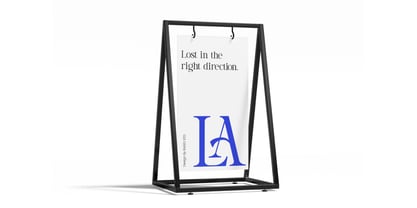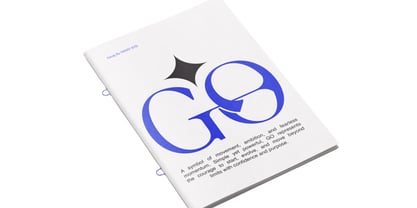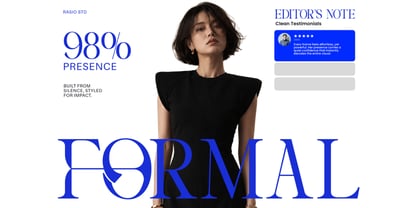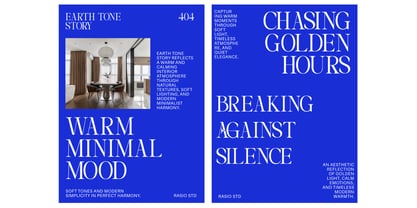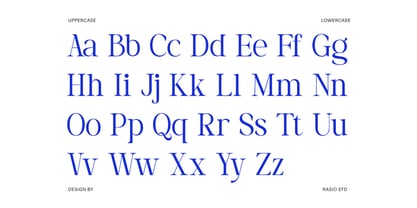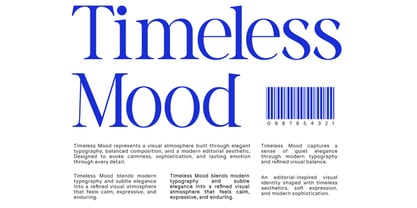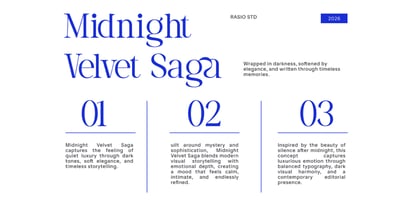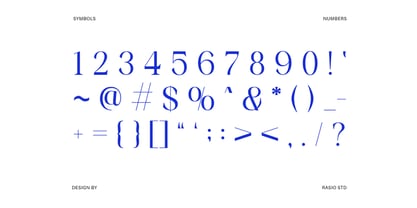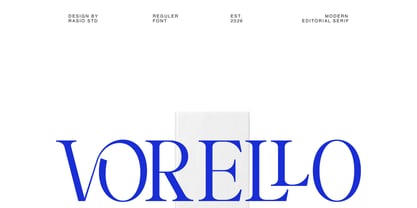
Vorello
by Rasio Studio
The Vorello Font Family was designed by Fajar Indra and published by Rasio Studio. Vorello contains 1 styles. More about this family
Vorello Editorial Serif Font is a refined typeface featuring elegant high-contrast serif details, graceful curves, and a sophisticated editorial appearance. The font includes uppercase, lowercase, numerals, punctuation, crafted with balanced proportions for luxury-inspired visual compositions. Its sharp serif structure and stylish letterforms create a polished aesthetic suitable for premium branding, fashion campaigns, magazine layouts, beauty packaging, and artistic typography projects.
Relevance & Use Cases is highly relevant for luxury branding and editorial-focused visual projects that require elegance and sophistication. The font works effectively for magazine covers, fashion campaigns, cosmetic packaging, jewelry branding, boutique logos, invitation cards, website headers, social media promotions, photography layouts, publishing projects, and upscale advertising materials.
Designers: Fajar Indra
Foundry: Rasio Studio